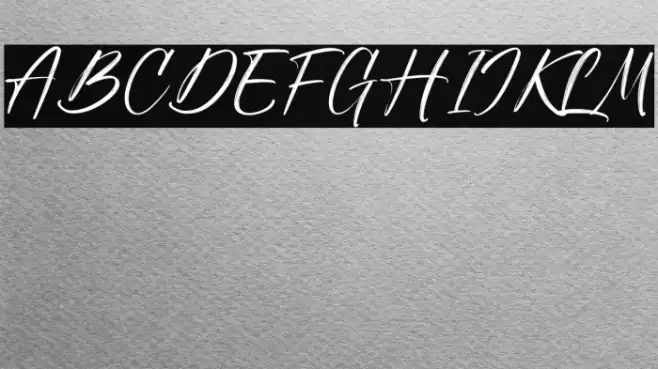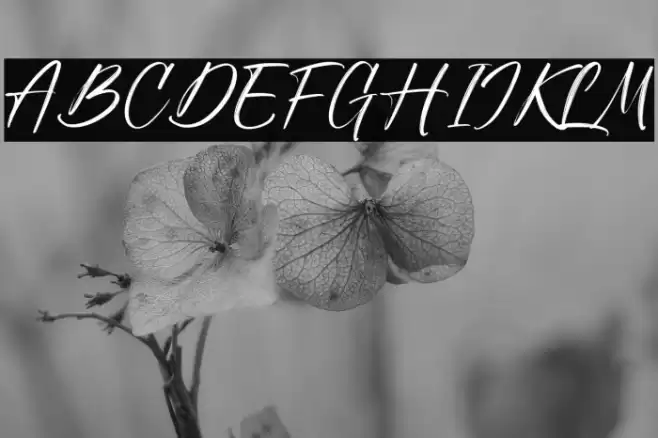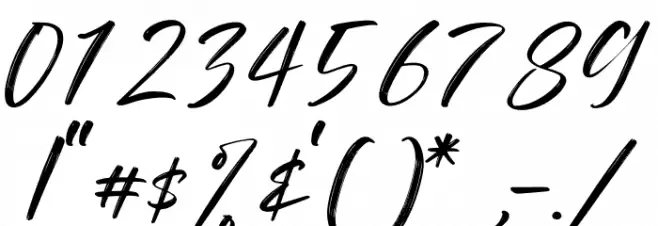
Sunday Freedom Font
Sunday Freedom Description
This font features a dynamic and expressive script style, characterized by fluid, sweeping strokes that convey a sense of freedom and movement. The uppercase letters are bold and slightly slanted, with elegant curves and a touch of flair. The lowercase letters maintain a consistent flow, enhancing readability while retaining a handwritten charm. Numbers and special characters are crafted with the same attention to detail, ensuring a cohesive look across all elements. The overall design is both modern and artistic, making it suitable for a variety of creative applications.
A dynamic and expressive script font with fluid, sweeping strokes from Uncategorized fonts.
- Proposed Projects: Ideal for branding, invitations, greeting cards, and artistic projects that require a personal touch.
- Use Case: Logos, Headlines, Artistic projects